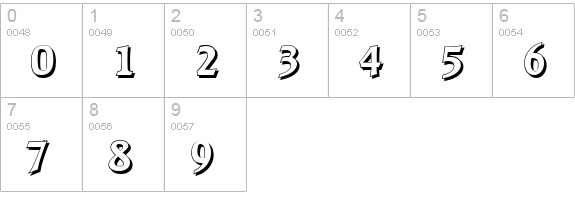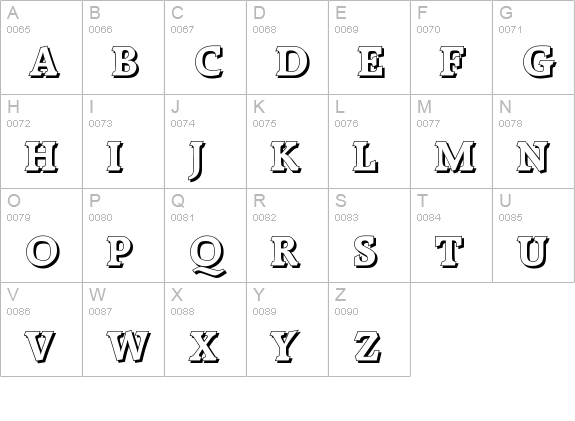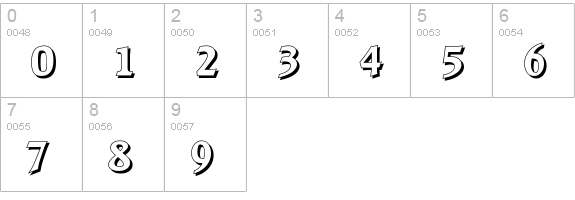
RaleighShadow-Bold Font Details
RaleighShadow-Bold is a strong, high-contrast variant in the RaleighShadow typeface family \xE2\x80\x94 well suited to headlines, attention-grabbing titles, and strong calls-to-action.
RaleighShadow-Bold is a striking and bold font that commands attention with its strong and assertive presence. Its sharp edges and shadow effect give it a modern and dynamic look, perfect for making a statement in headlines, titles, and logos. This font exudes confidence and strength, making it ideal for projects that require a bold and impactful touch. Best of all, RaleighShadow-Bold is available for free download at FontsMarket.com. This means you can easily access this powerful font and incorporate it into your designs without any cost. Whether you're working on branding, posters, or website graphics, RaleighShadow-Bold is a versatile choice that will elevate your projects to new heights. Download it now and unleash its bold energy in your creations!